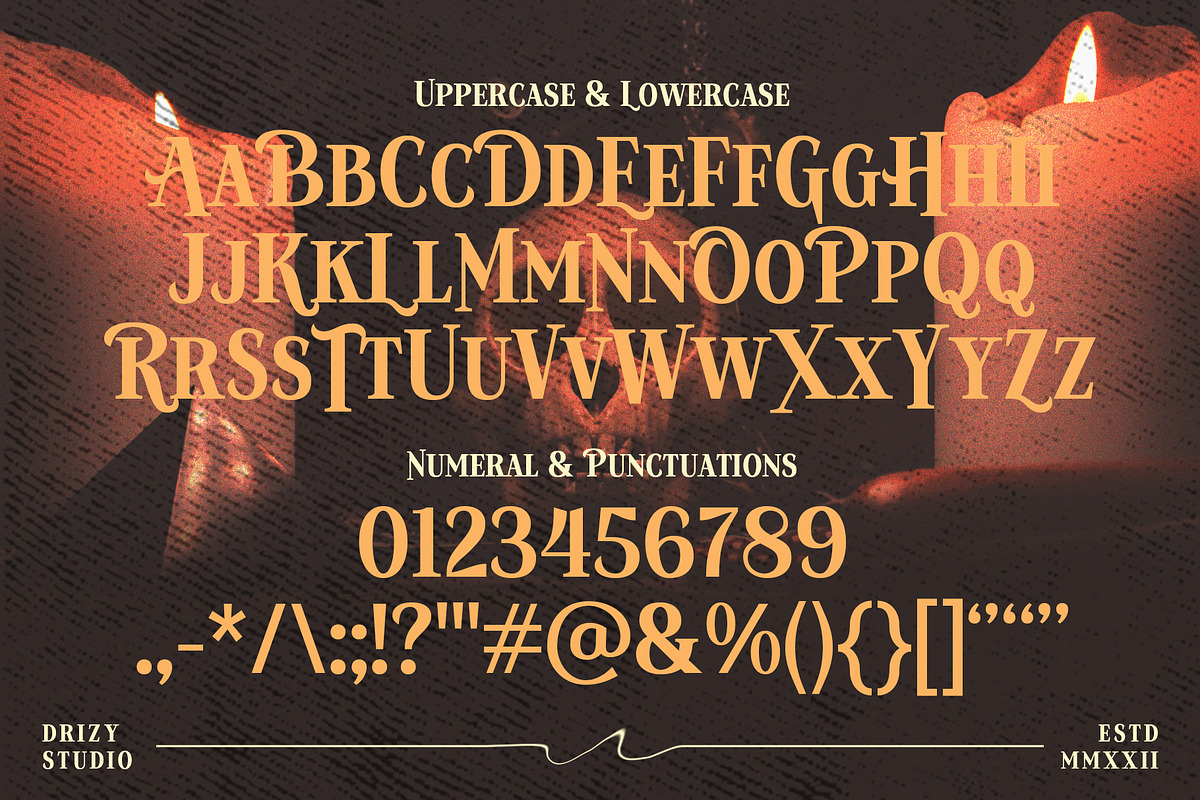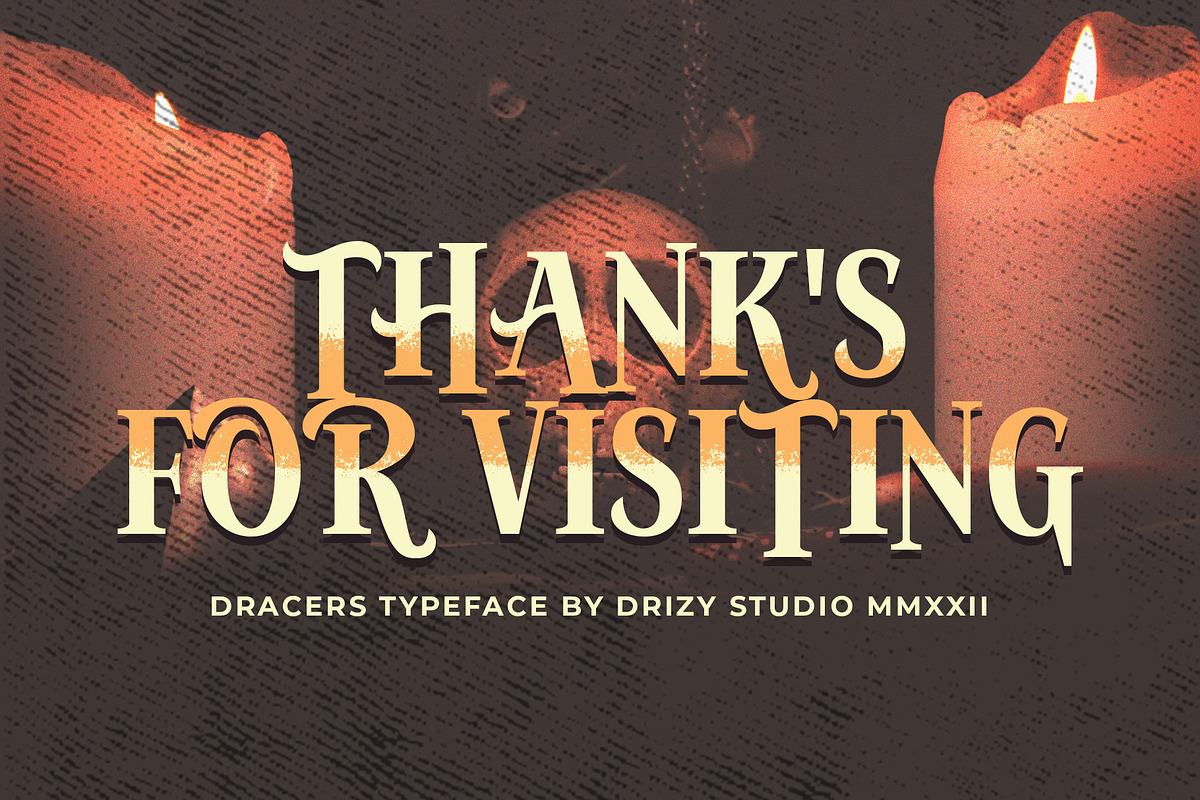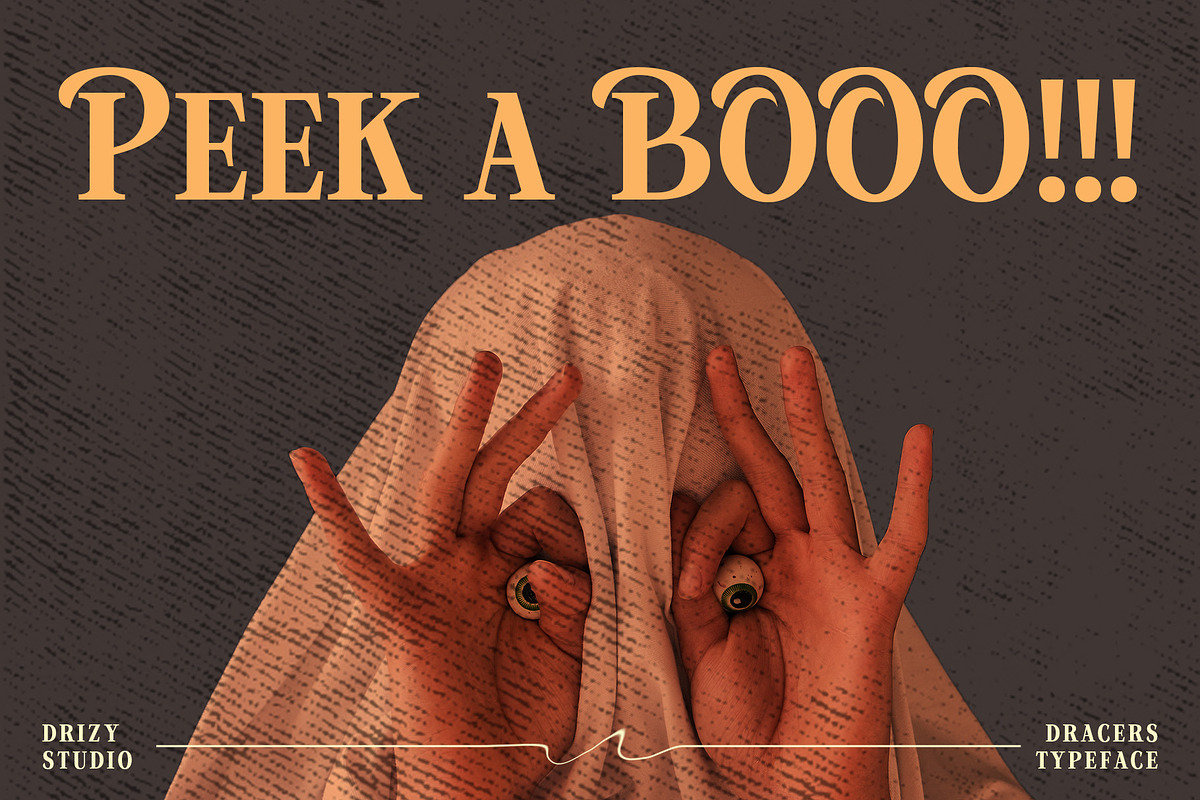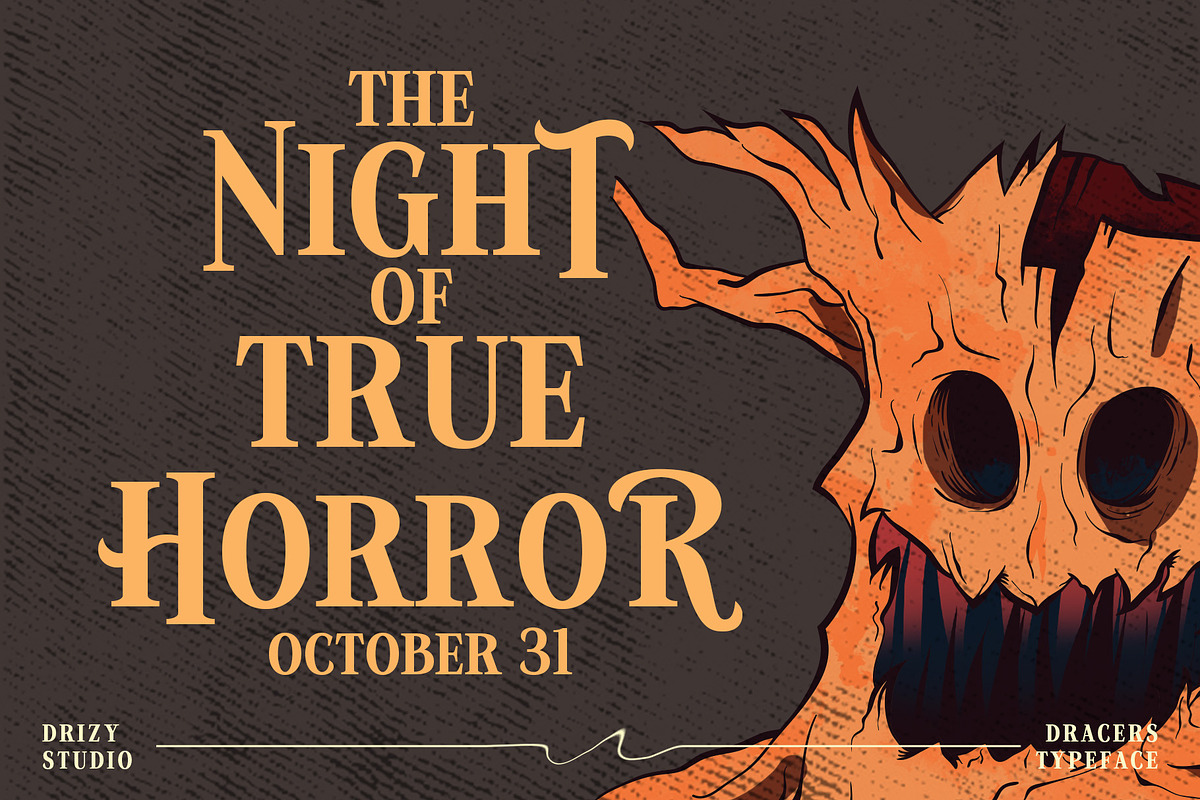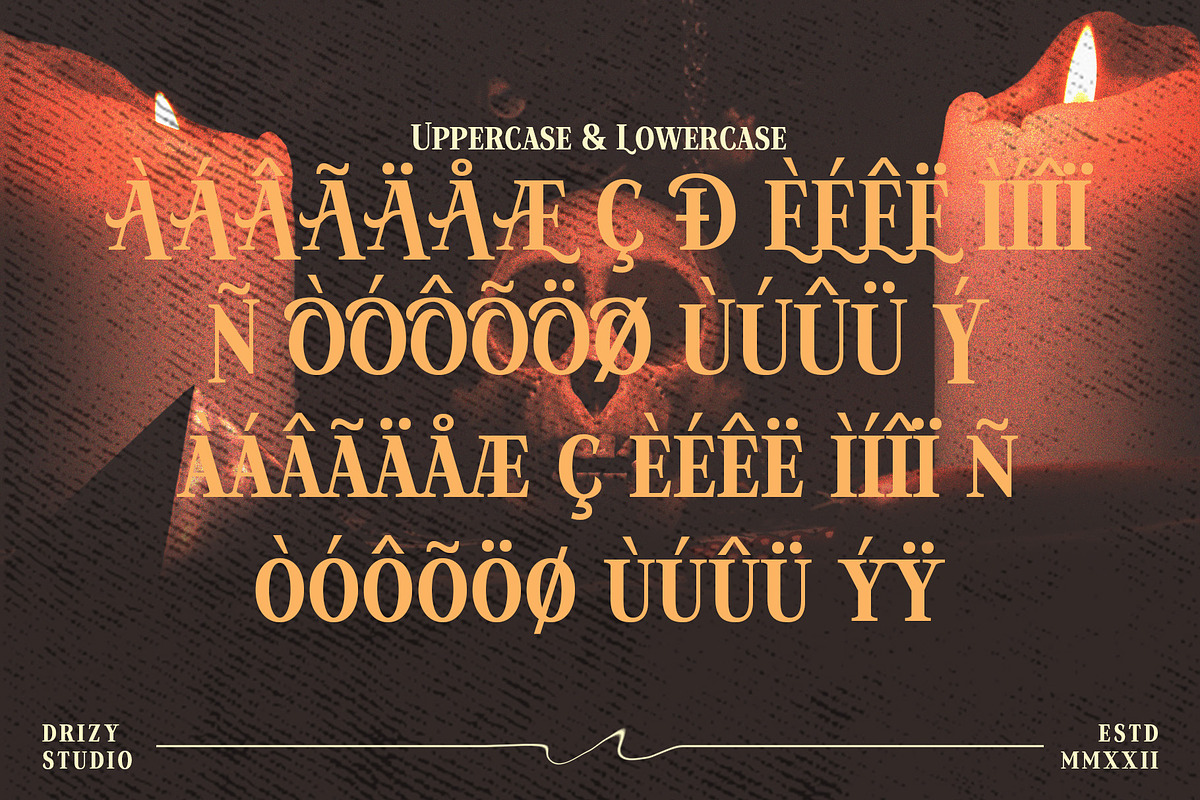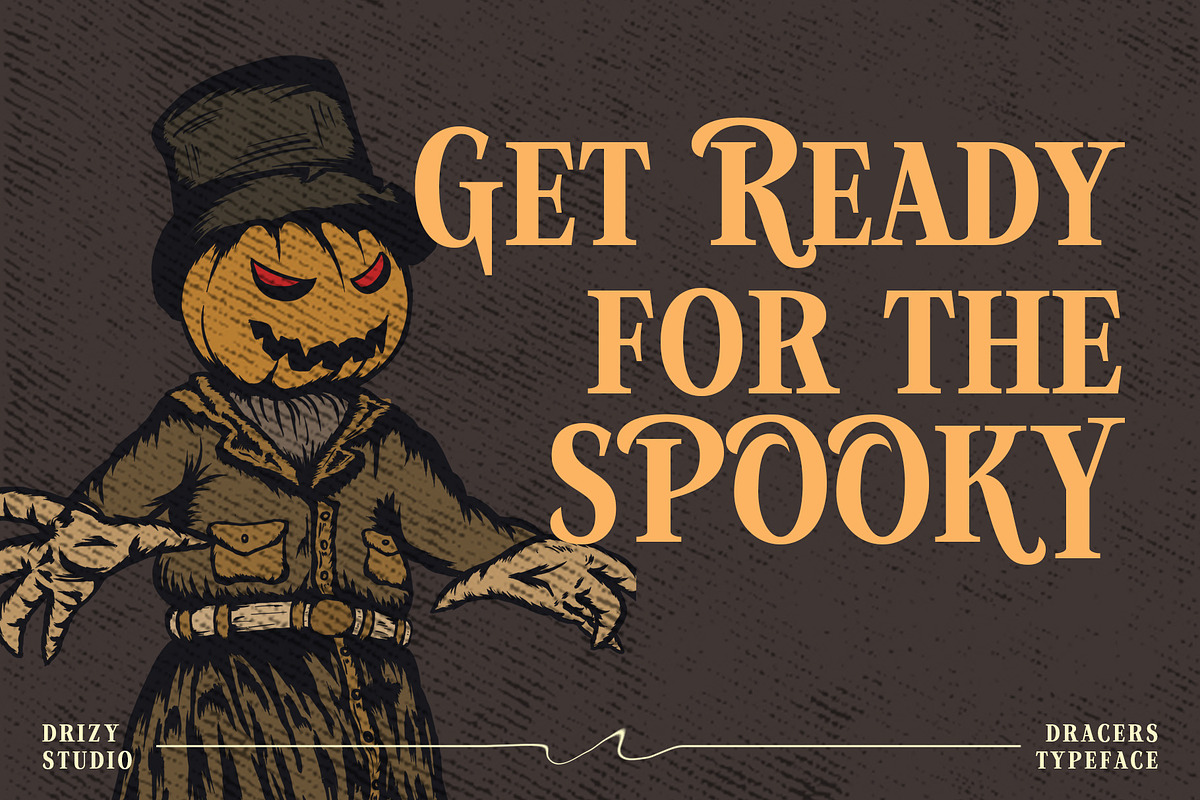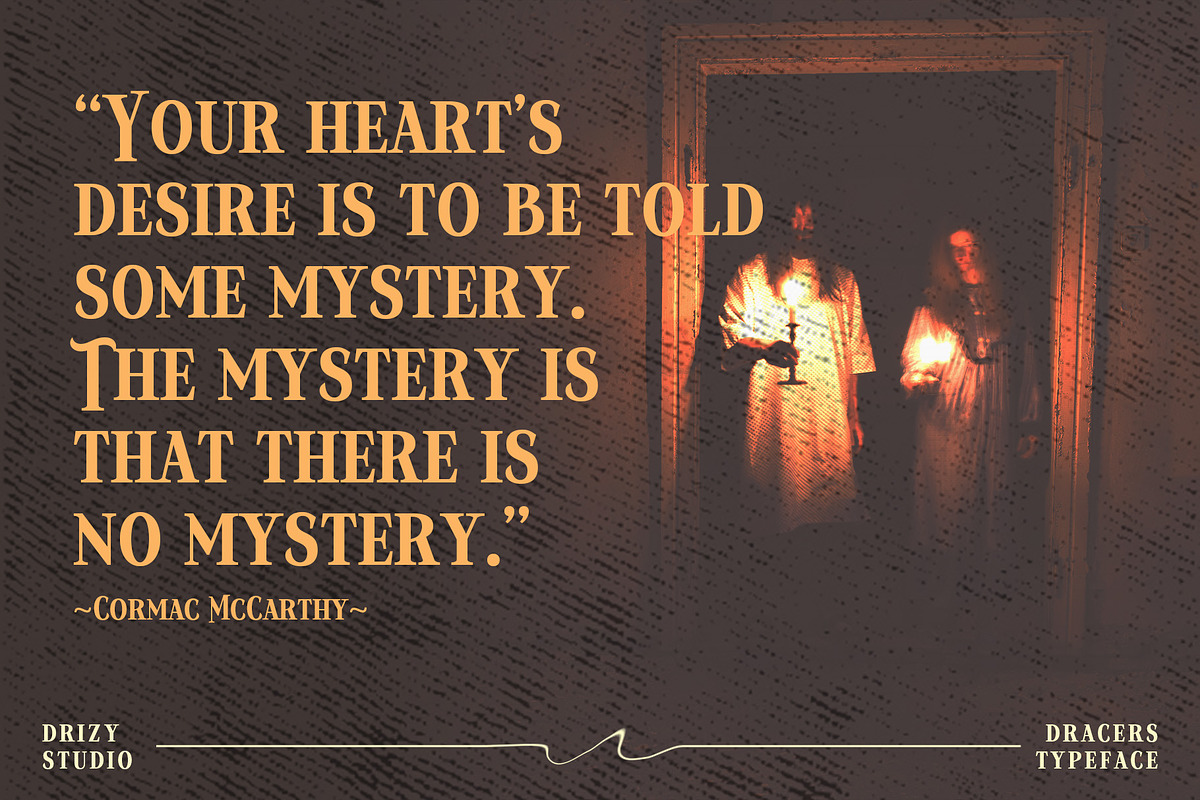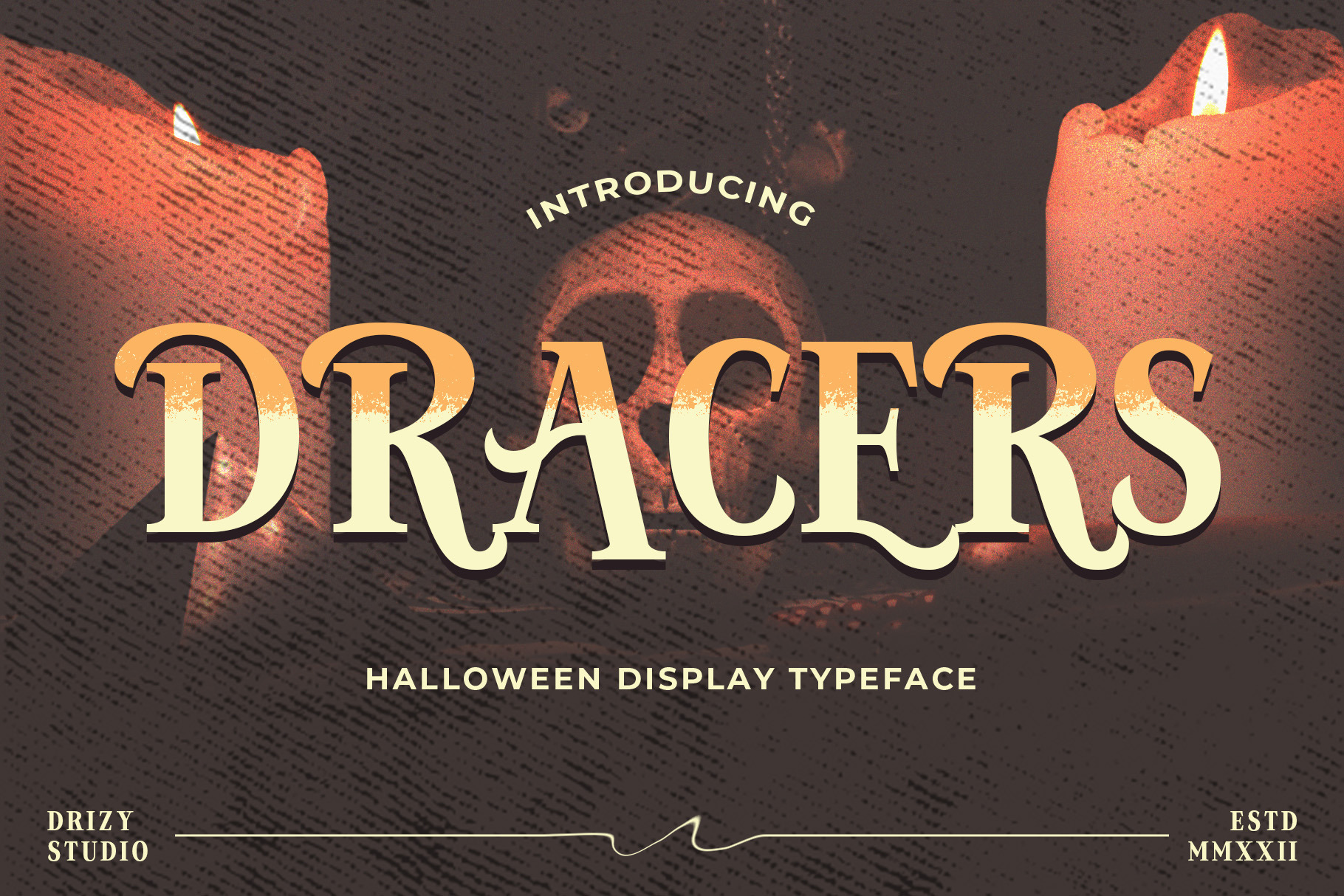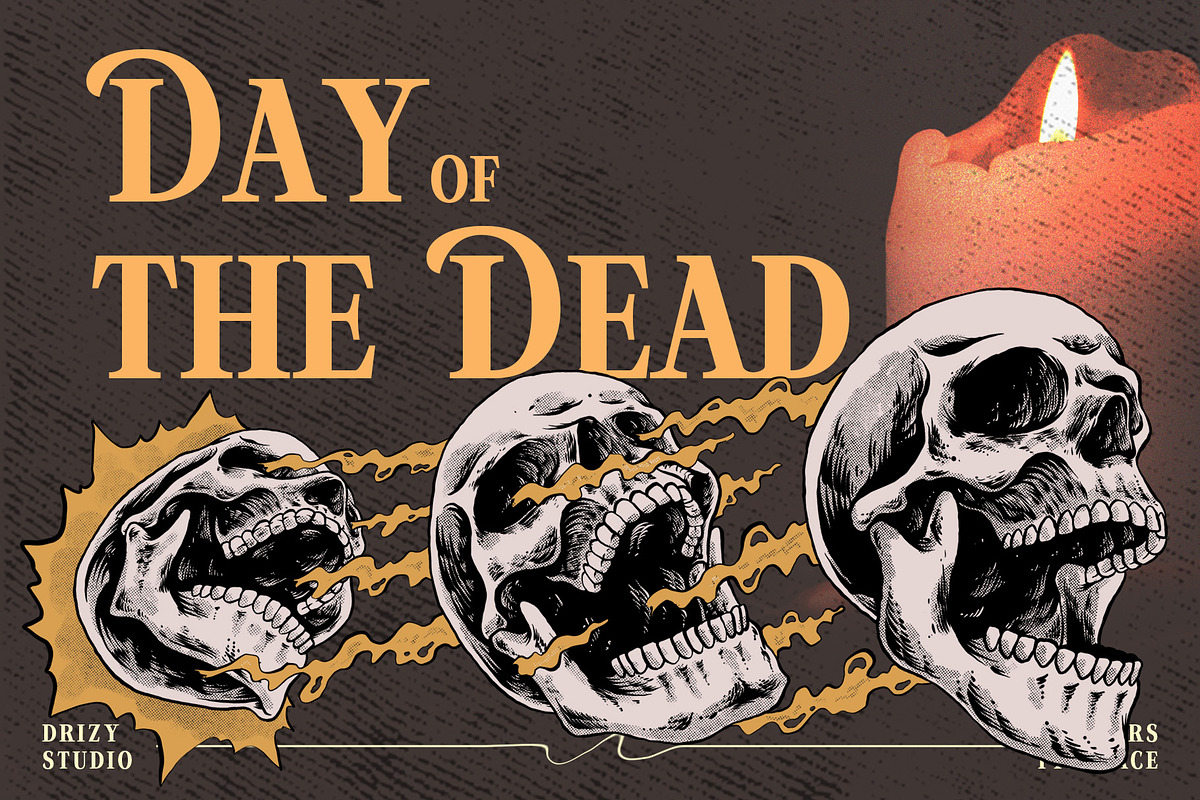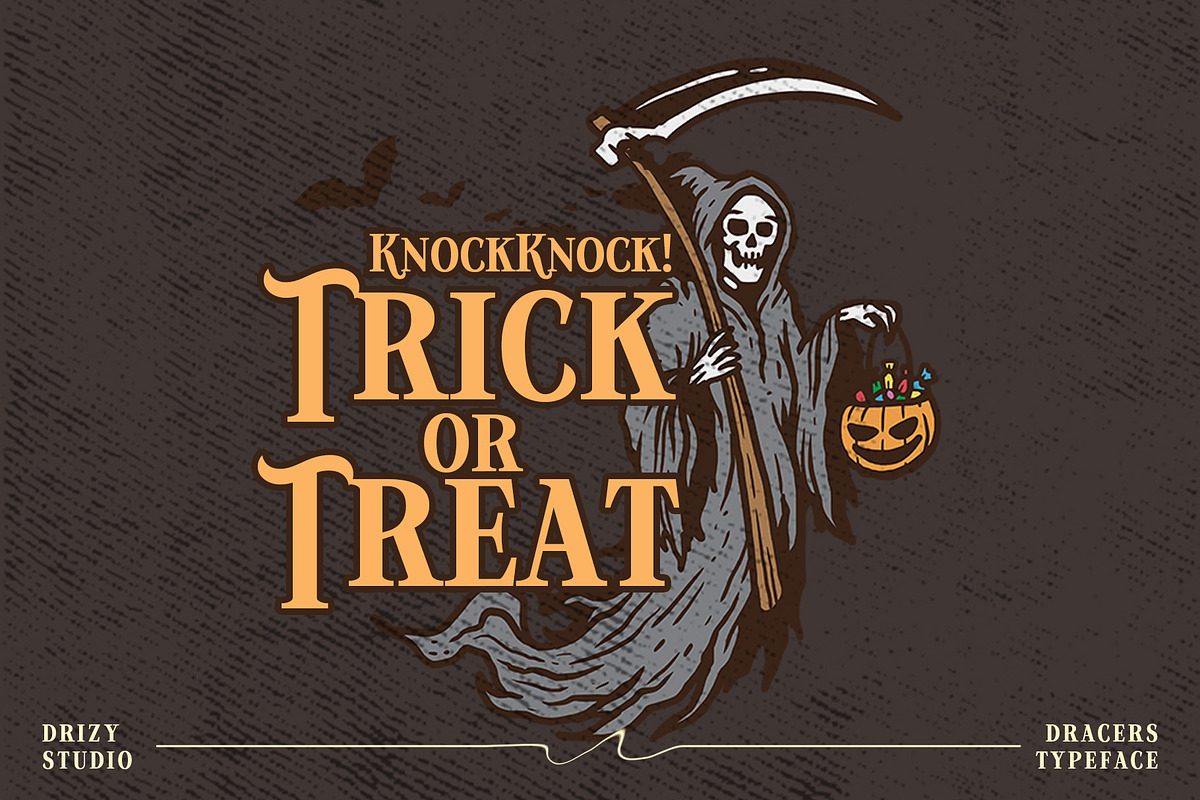
Dracers – Halloween Font
Dracers is a Halloween Font from Drizy studio. Offering all the basic styles you will need for a spooky and scary theme, especially Halloween project.
Dracers Features:
Uppercase & Lowercase Numeral & Punctuation Multilinguals